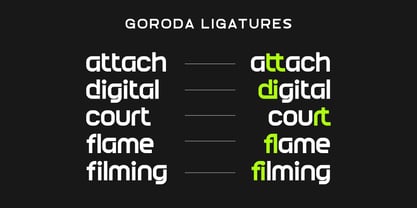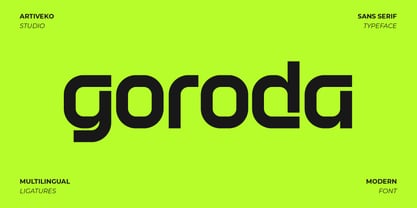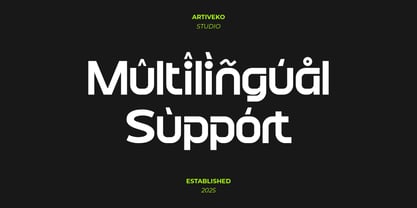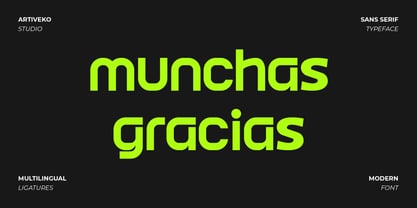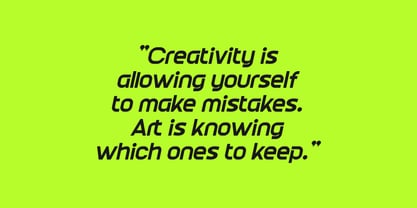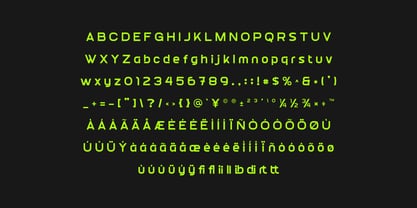
Goroda
by Artiveko
The Goroda Font Family was designed by Iwan Alwan and published by Artiveko. Goroda contains 2 styles and family package options.
Goroda is a sleek sans serif font that combines modern minimalism with timeless elegance. Featuring smooth curves, geometric balance, and refined proportions, Goroda is designed to deliver clarity and sophistication across a wide range of creative projects. From luxury branding and professional logos to editorial layouts, website headers, and packaging, Goroda ensures a polished and stylish aesthetic.
Its versatile structure allows it to shine in both bold headlines and refined body text, making it suitable for industries such as fashion, lifestyle, tech, and creative agencies. With its subtle details and clean construction, Goroda adds a touch of exclusivity and professionalism to any design.
The font includes uppercase and lowercase letters, numerals, punctuation, multilingual support, and stylistic alternates for enhanced flexibility and creativity.
Elevate your design work with Goroda — the modern sans serif font that blends elegance, clarity, and contemporary sophistication.